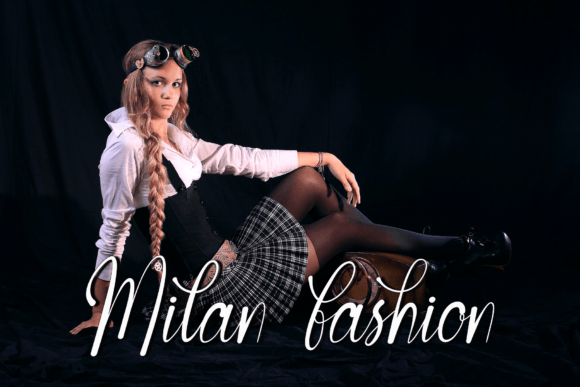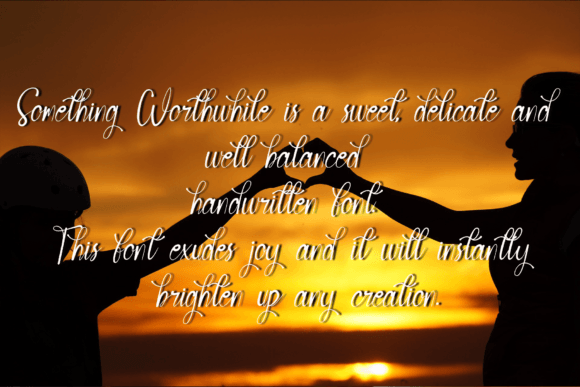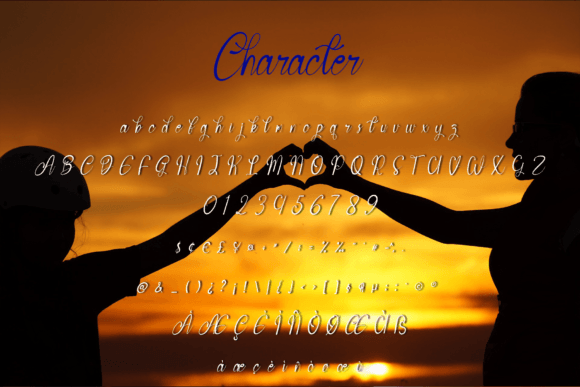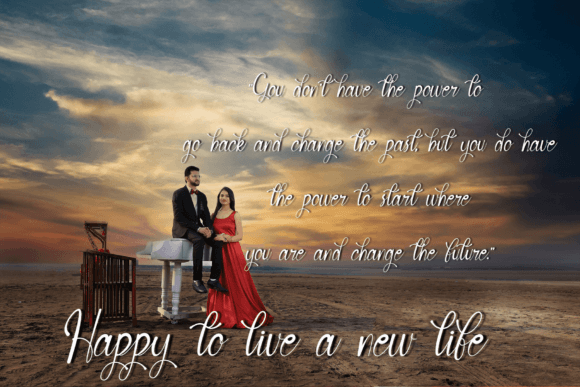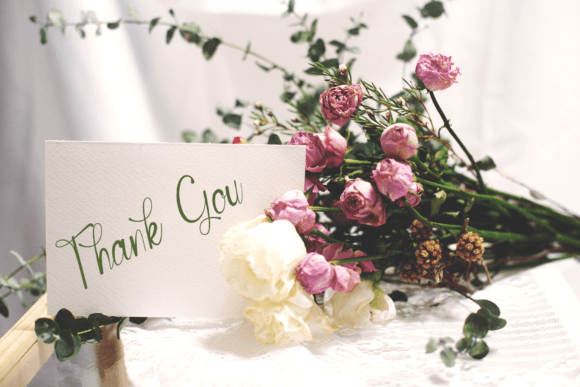
Worthwhile Font
About Worthwhile Font
Worthwhile is more than just a font; it’s a versatile and creative tool that can elevate your design projects to new heights. With its fancy and handwritten style, Worthwhile opens up a realm of creative possibilities, making it suitable for various applications such as logo design, social media graphics, movie titles, and book titles. The distinctive and stylish aesthetic of this font ensures that your work stands out, leaving a lasting impression on your audience.
One of the key strengths of Worthwhile lies in its ability to bring a touch of flair and creativity to logo design. Whether you’re establishing a new brand or refreshing an existing one, this font adds a unique and captivating element that helps your logo leave a memorable impact. The handwritten charm creates an authentic and personalized feel, establishing a connection between your brand and your audience.
In the realm of social media, Worthwhile is a valuable asset for crafting visually appealing graphics. Whether you’re designing posts, banners, or promotional material, the fancy and creative elements of this font enhance the overall aesthetic, making your content more engaging and shareable. The versatility of Worthwhile ensures that it adapts seamlessly to various social media platforms, allowing for a consistent and eye-catching presence.
When it comes to movie titles, Worthwhile brings a cinematic and expressive quality to the table. Its fancy and stylish design can set the tone for the entire film, creating anticipation and intrigue among viewers. The handwritten touch adds a human element, making the titles feel more connected and relatable.
In the realm of book titles, Worthwhile offers a blend of elegance and creativity. Whether you’re working on a novel, a self-help book, or any other genre, the font’s unique style contributes to the overall theme and tone of the book. It adds a layer of sophistication, making your book visually appealing and enticing to potential readers.
In conclusion, Worthwhile is a font that lives up to its name, offering a worthwhile and valuable addition to your design toolkit. Its fancy and handwritten charm make it suitable for a range of projects, allowing you to create stunning and visually captivating work that leaves a lasting impression. Whether you’re designing logos, social media graphics, movie titles, or book titles, Worthwhile is a font that brings creativity, flair, and a touch of elegance to every project it graces.